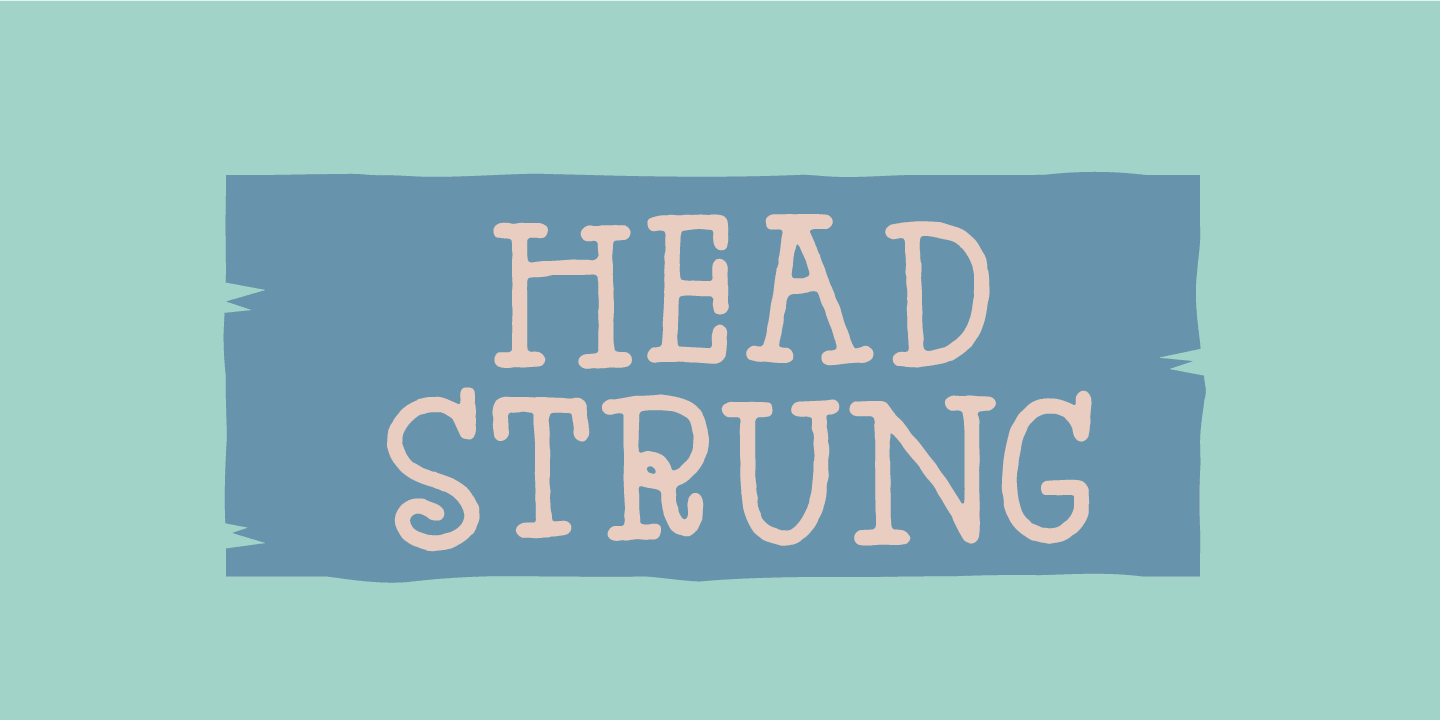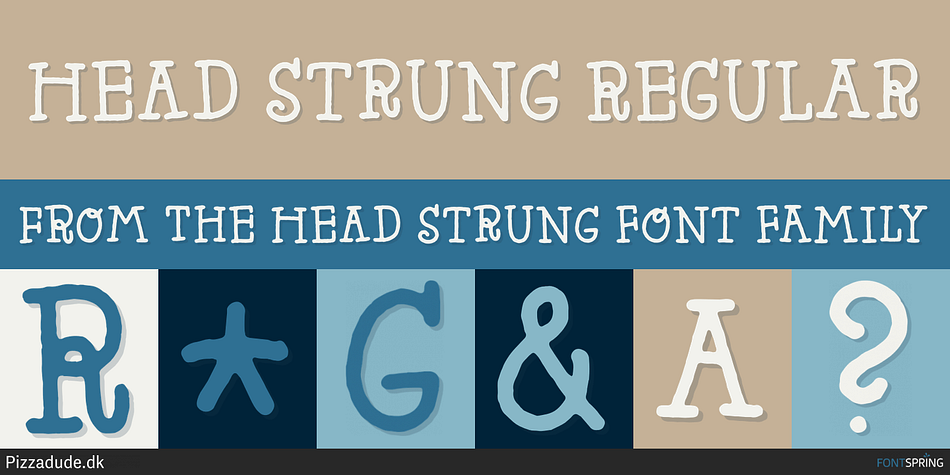
HEAD STRUNG REGULAR
Designed by Jakob Fischer, Head Strung is a hand display and hand drawn font family. This typeface has two styles and was published by Pizzadude.dk.
The Head Strung font is designed with a simple and basic serif structure, but has its oddities and curly lines. It comes with 4 different versions of each letter, and these automatically cycle as you type.